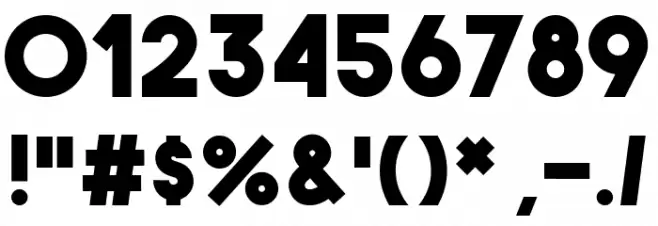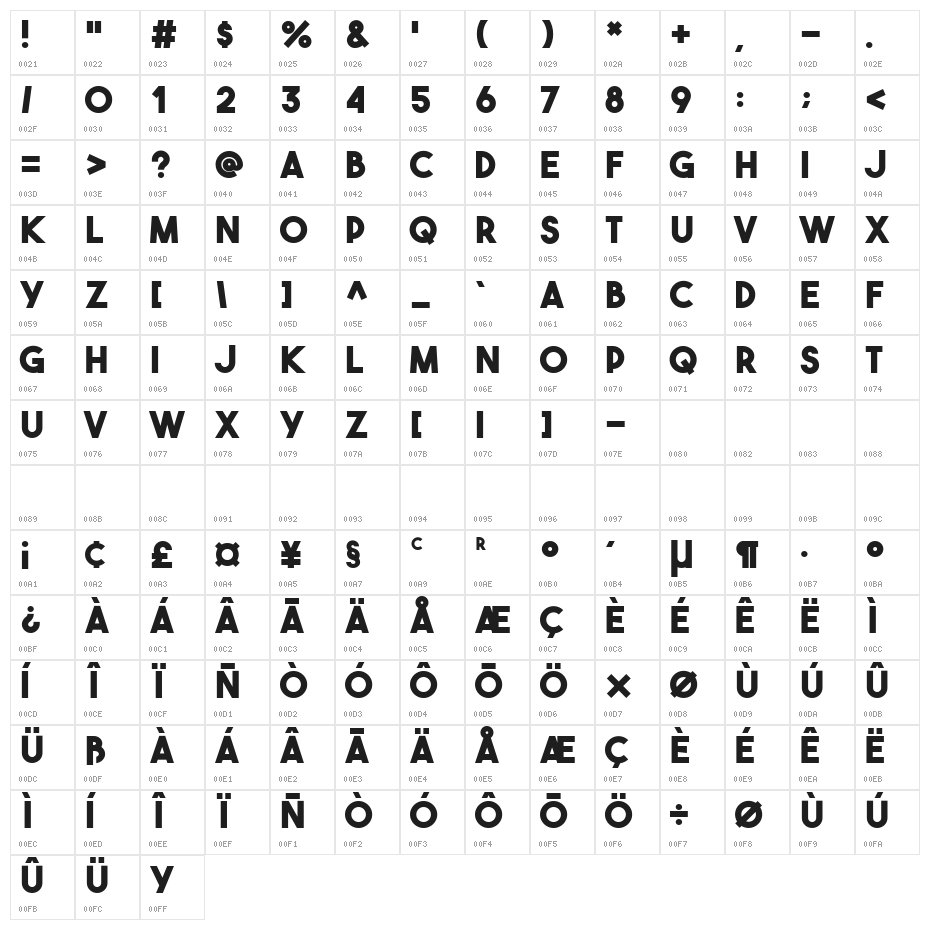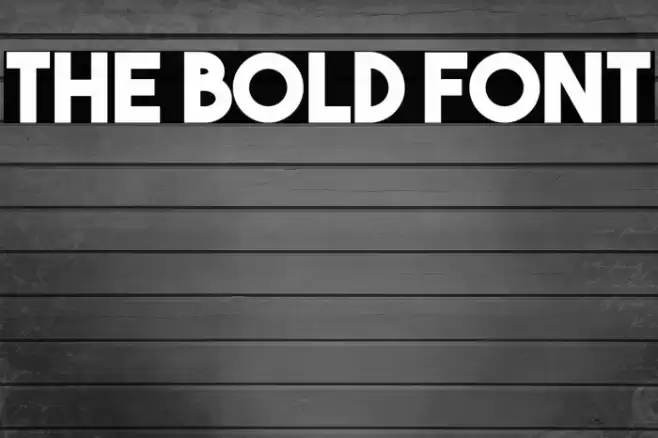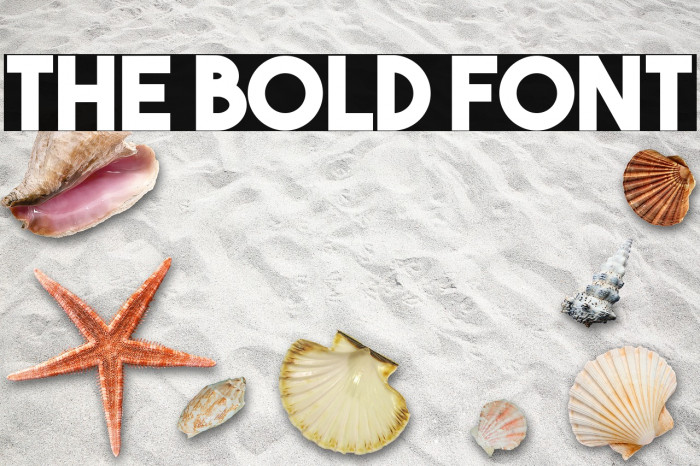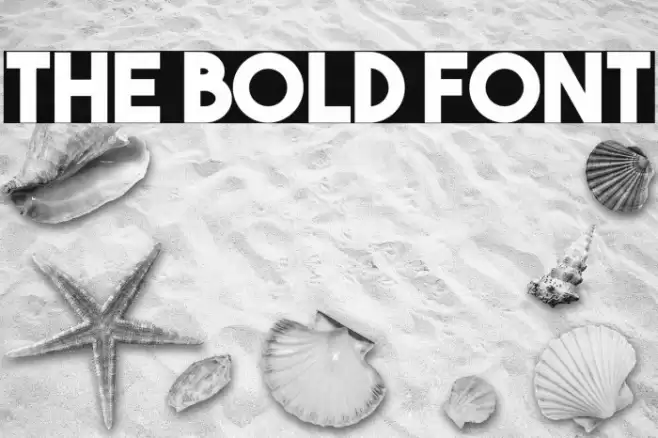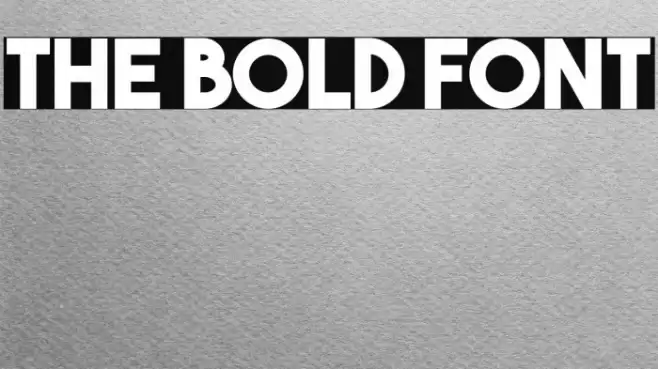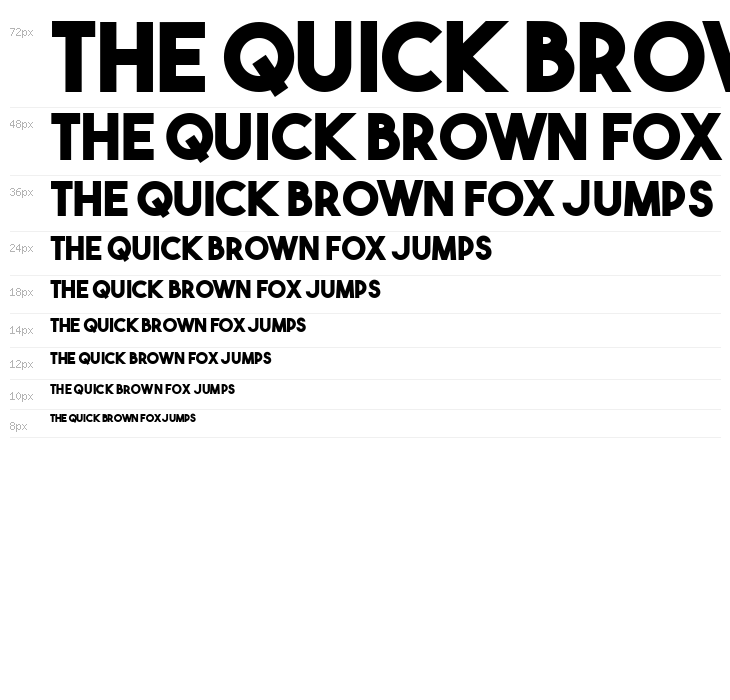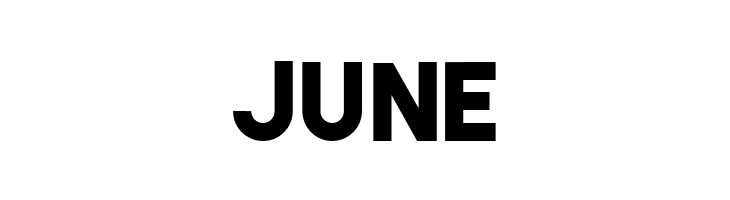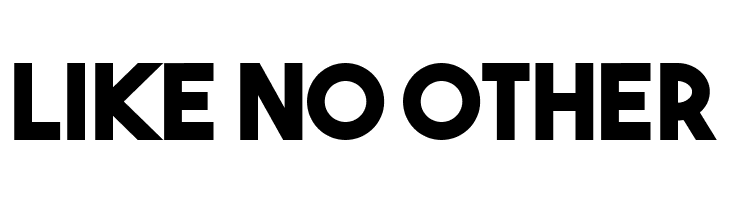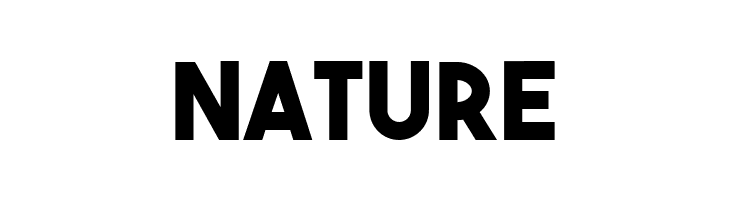
The Bold Font Font
The Bold Font Description
This typeface is characterized by its bold and impactful appearance, featuring thick, uniform strokes that convey strength and confidence. The letters are cleanly designed with sharp edges and a modern aesthetic, making them highly legible even at smaller sizes. The numbers and special characters maintain the same boldness, ensuring consistency across all elements. This font is versatile, suitable for various applications where a strong visual presence is required. Its simplicity and clarity make it ideal for both digital and print media.